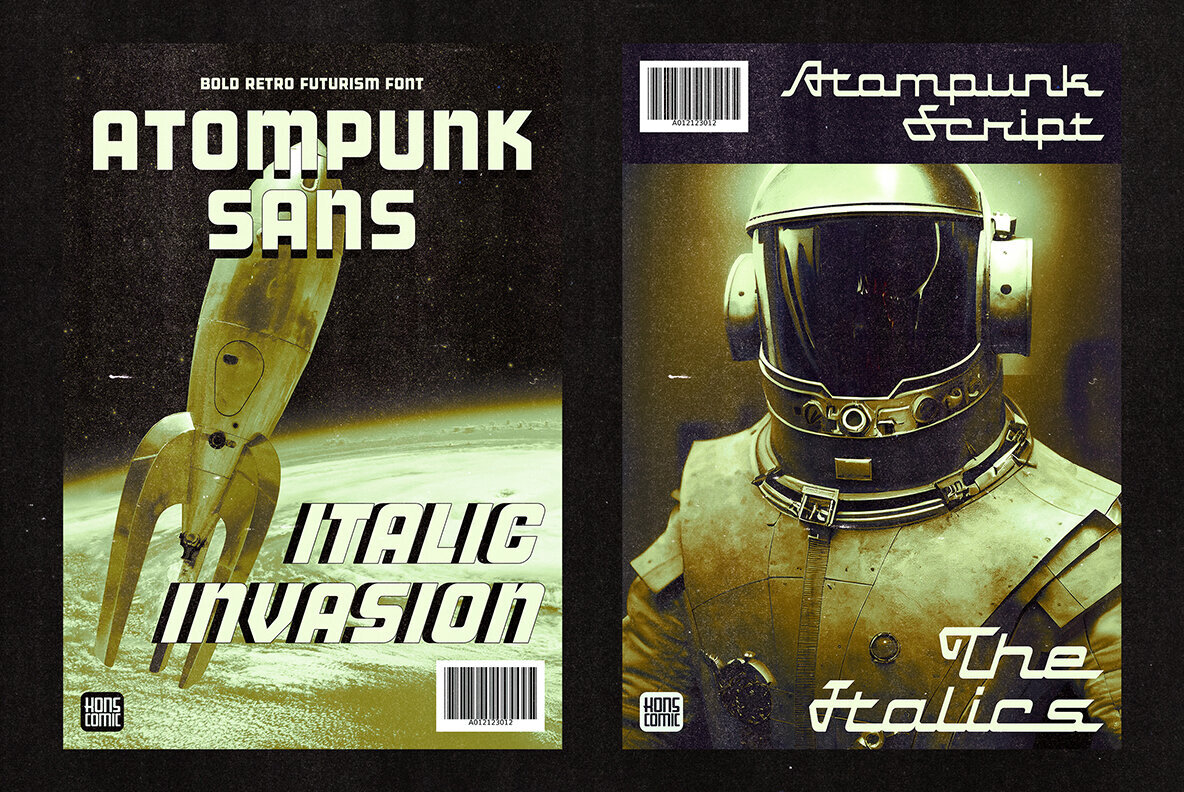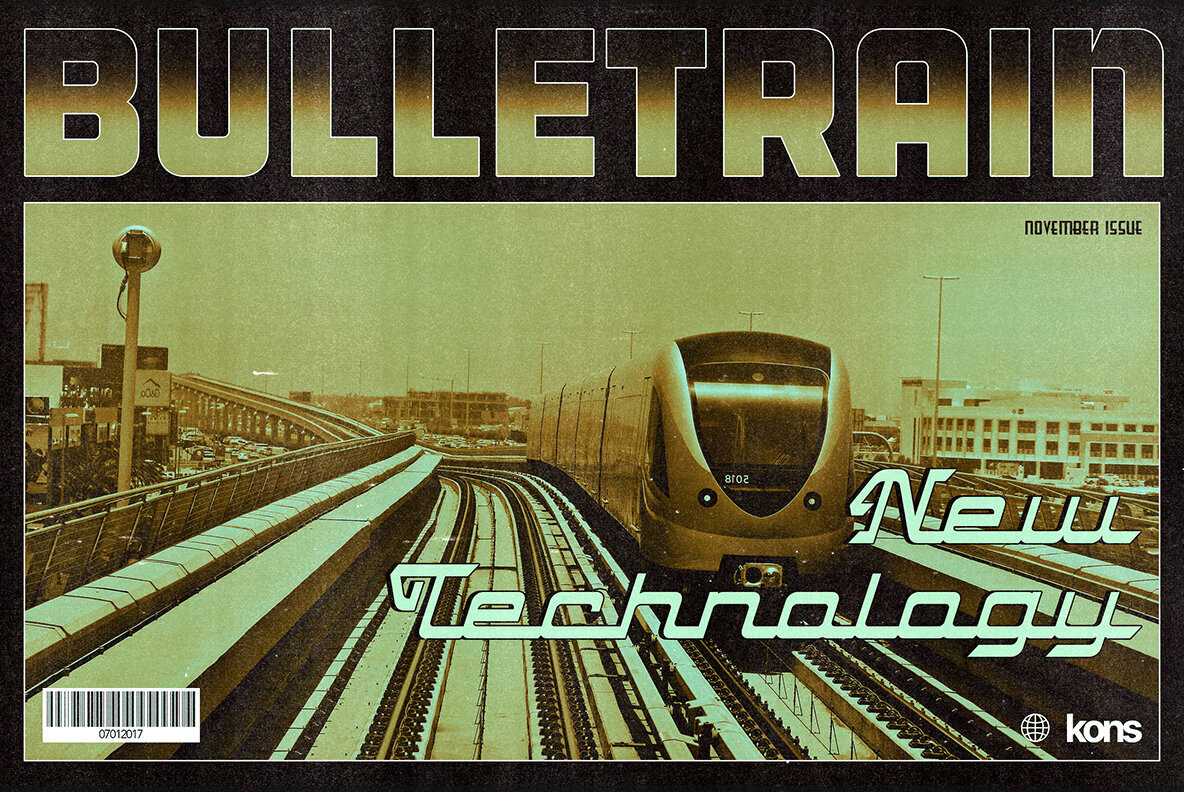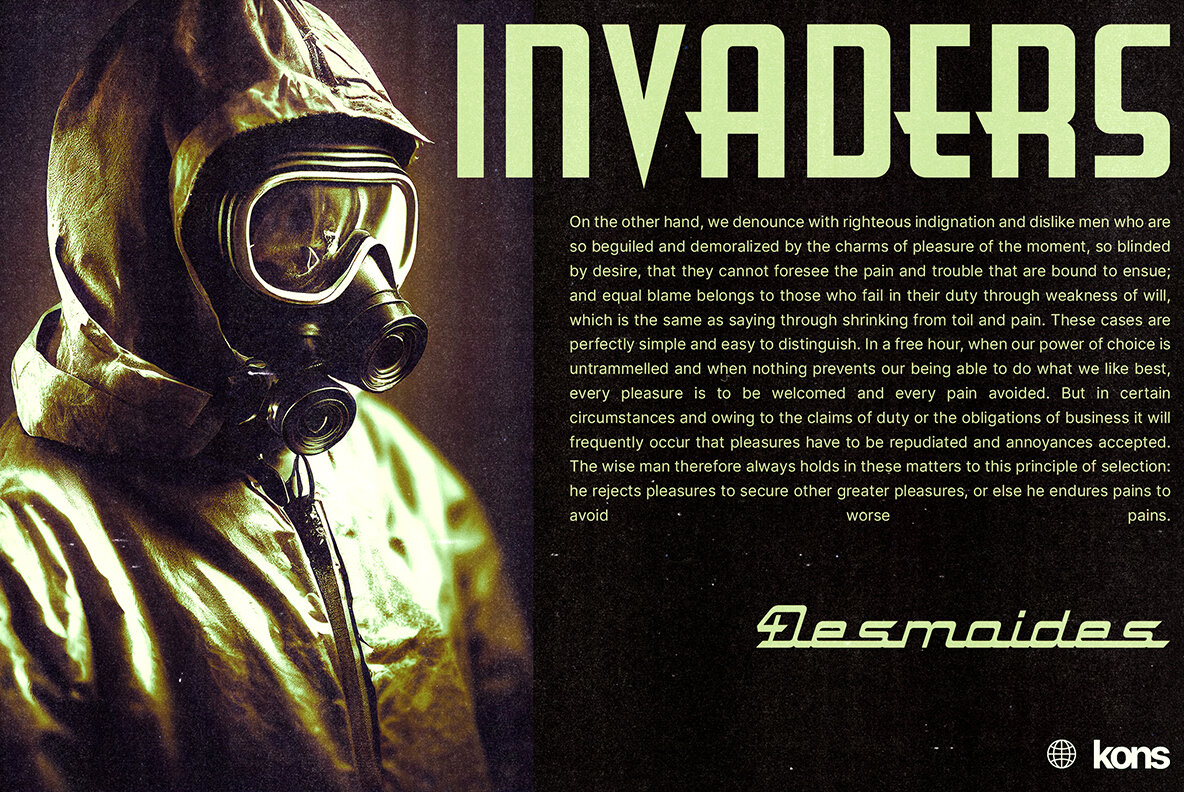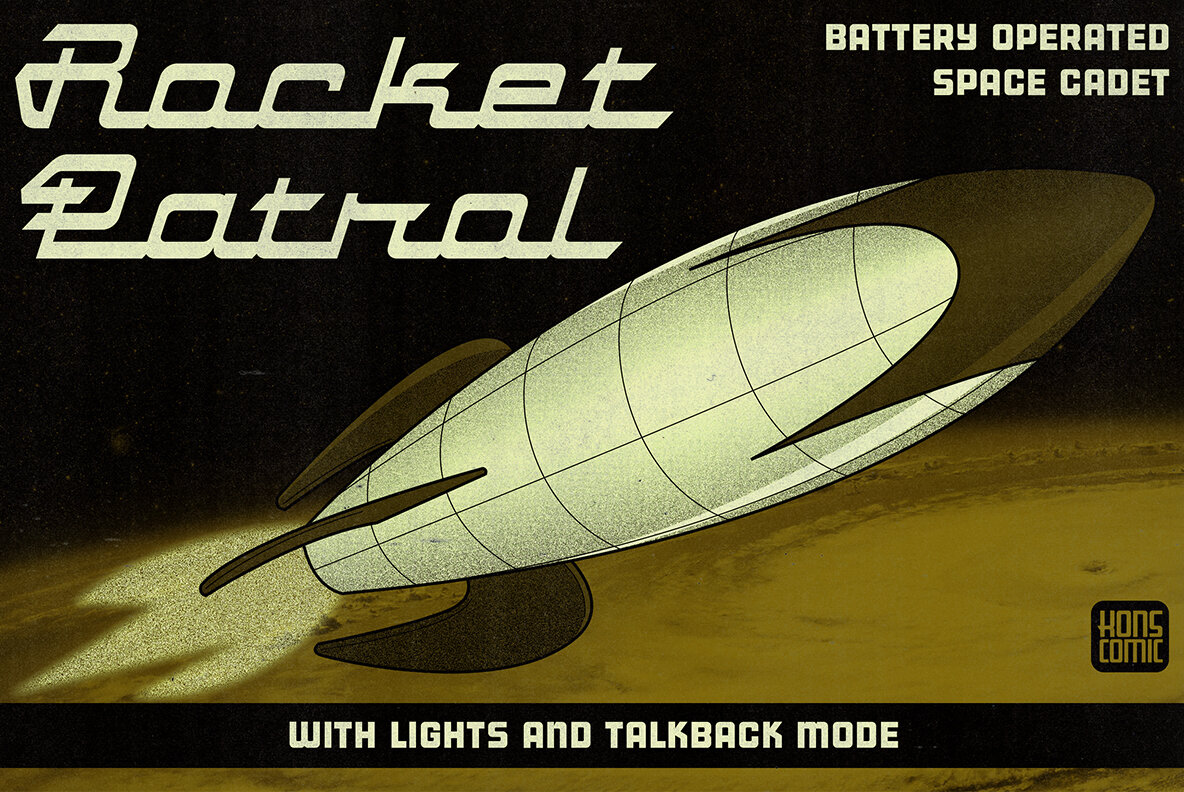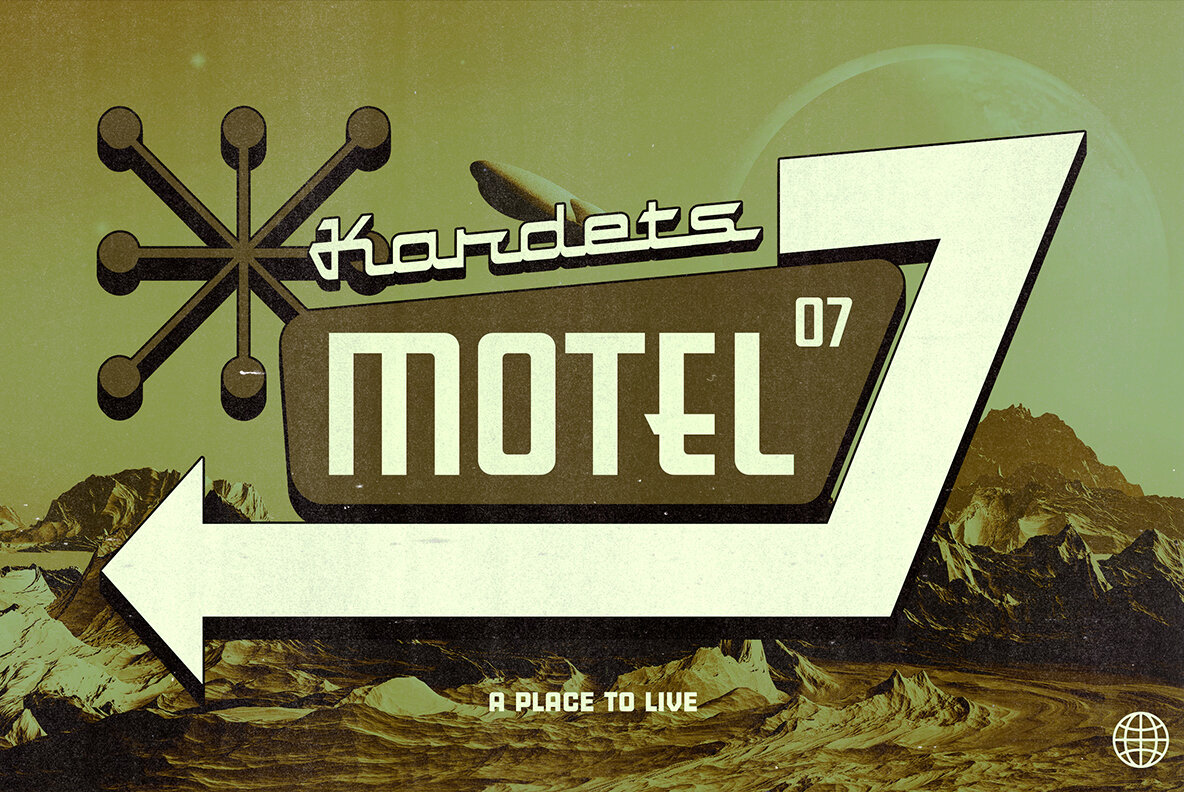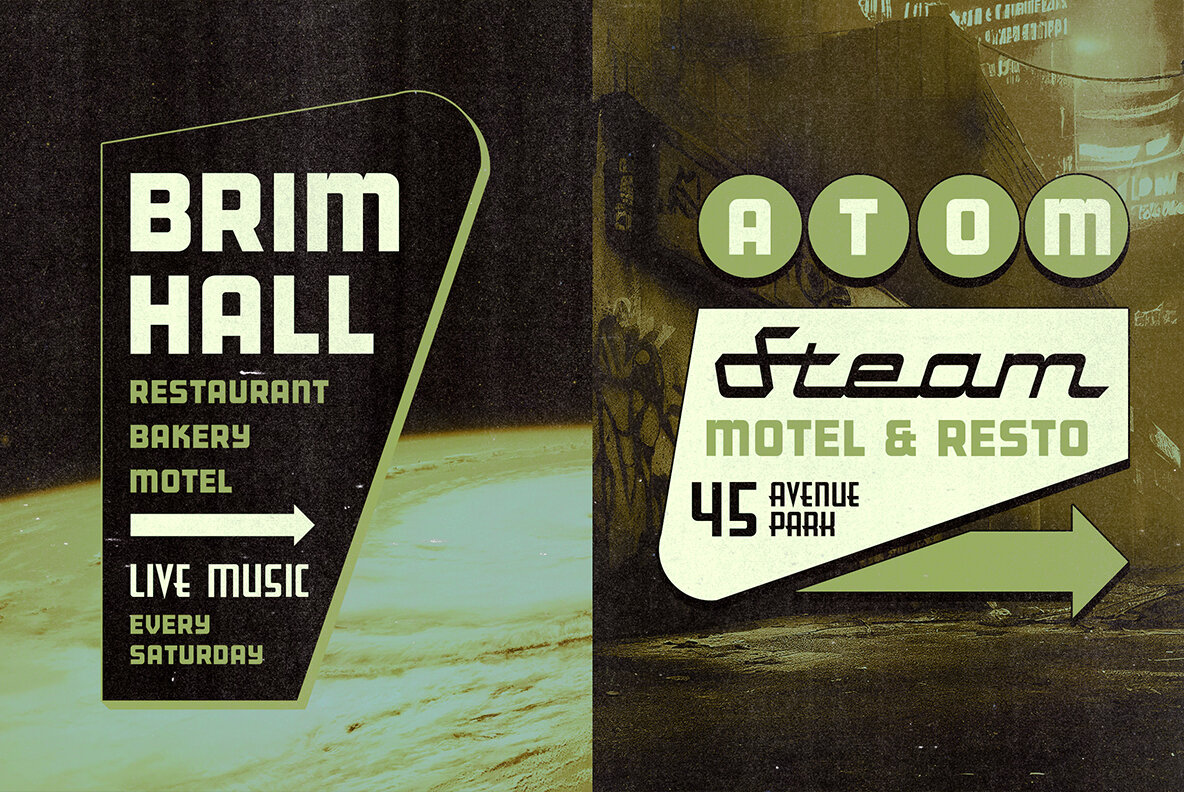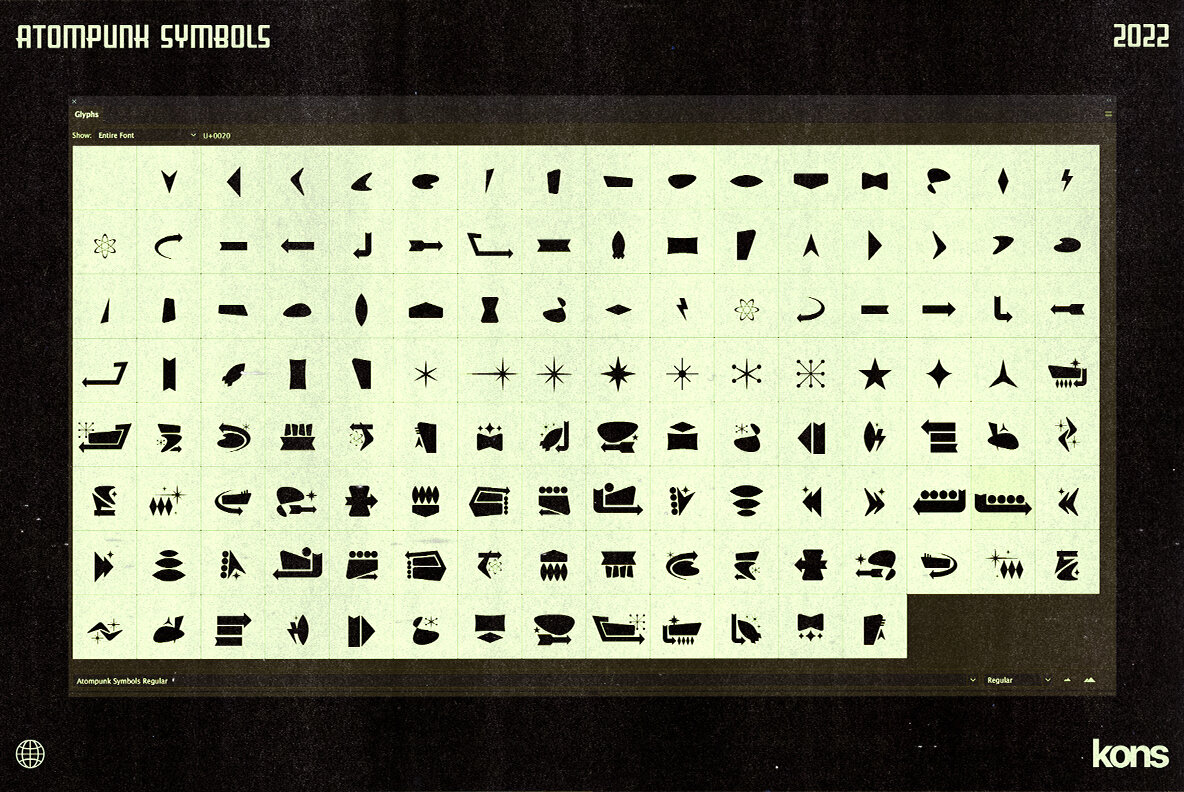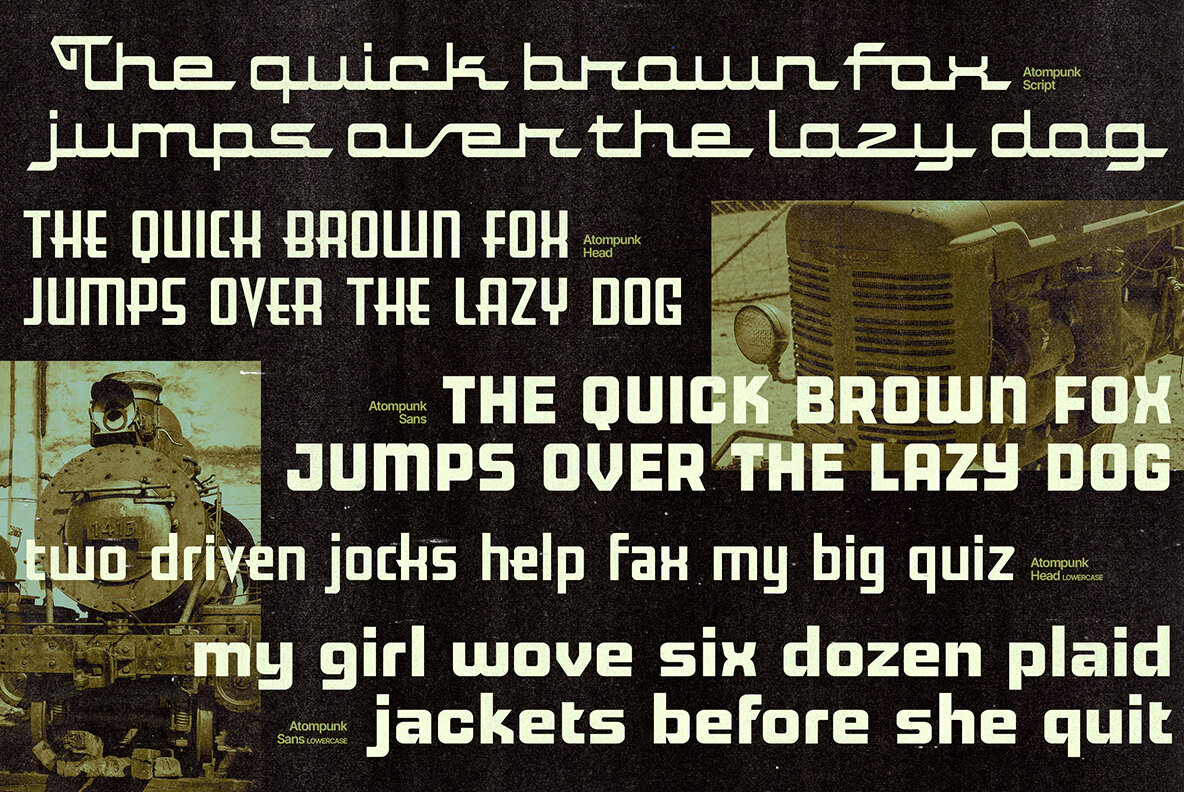
Atompunk Font
Inspired by the first wave of the industrial revolution back in the 60s. The glory of steam and steel machines in manufacturing technology.
Atompunk was referenced from the science-fiction visual of the retro-futurism mindset—the imagination of nuclear-based technology for every human need.
It contains Atompunk Head, Atompunk Sans, Atompunk Script, and Atompunk Symbols to pair up with each other. Every character is carefully tailored with tons of research to match up well with the era.
Perfectly fit for sci-fi movies, serials, technology-based branding, poster, logo, vintage illustration, packaging, snack, event, festival, album artwork, cover artwork, books, toys, games, arcades, cards, automotive, and many more.